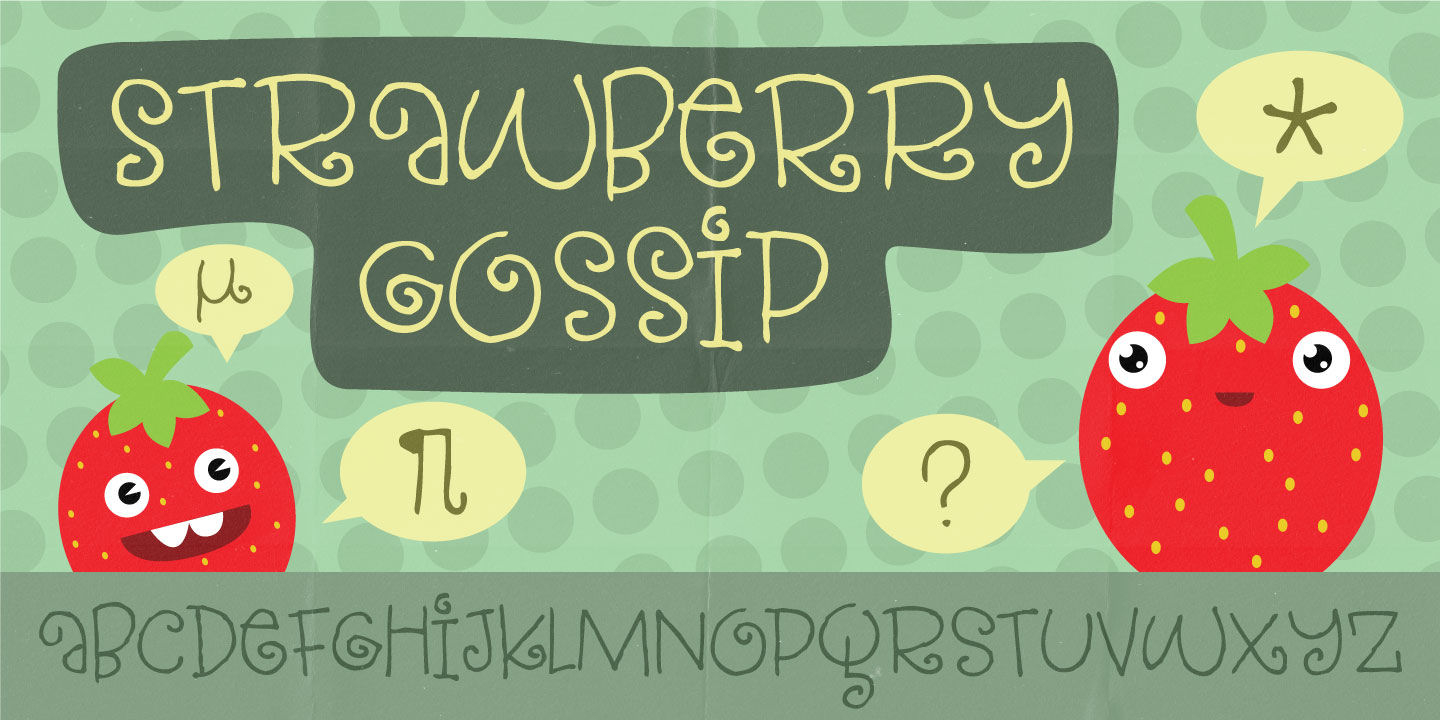
Strawberry Gossip is a hand display and kids font published by Pizzadude.dk.
Here is something to talk about! Spread the word - spread the gossip!
An elegant combination of thin and fragile lines, made with a fine pen.